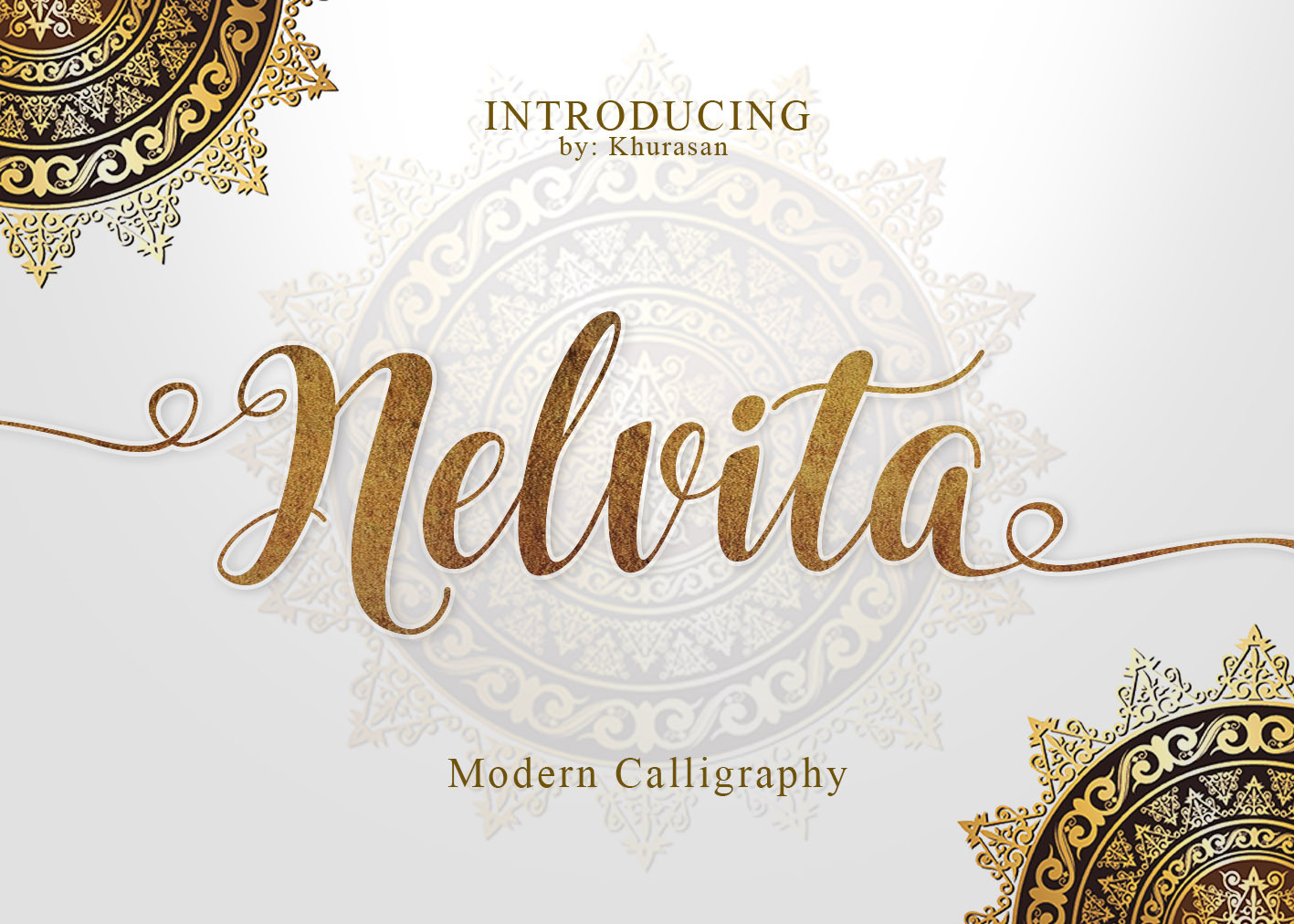
Nelvita Script (Duo Font + Extra)
Nelvita Script is a beautiful handmade script font, modern calligraphy & fresh typeface. Nelvita Script suitable for logo, branding, greeting card, signature, poster and any design that you create.
Nelvita Script Features
- Numeral